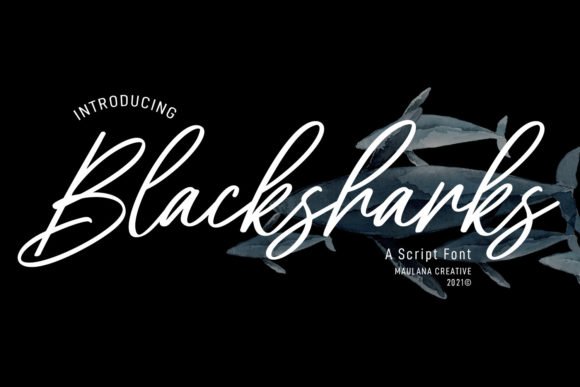
Unlock the Magic of Handwritten Charm with Blacksharks Script Font
Remember that moment when you finally nailed the design concept for your new branding project? The client loved it, and you felt a rush of excitement knowing you’d created something truly special. But, there was still something missing – a touch of personality that would make it truly stand out. That’s where Blacksharks Script Font comes in – a relaxed script font that brings a playful, handwritten charm to your designs.
With its endearing characters that seem to dance along the baseline, Blacksharks Script Font adds a touch of whimsy to your most creative ideas. Whether you’re designing a logo, packaging, or a marketing campaign, this font is sure to make your designs more engaging and memorable. As a valuable addition to any designer’s toolkit, Blacksharks Script Font is a must-have for anyone looking to elevate their creative work.
Blacksharks Script Font Key Features
- Unique Characteristics: The Blacksharks Script Font features a beautiful, hand-drawn script style with elegant connections and subtle flair, perfect for creative and artistic projects
- Font Weight: Offers a single weight, ideal for use as a headline or title font
Blacksharks Script Font Review
As a designer, I’ve had the chance to work with various script fonts, and Blacksharks Script Font is one of the most interesting ones I’ve come across. Here’s my honest review.
- Unique Character Set: Blacksharks Script Font has an extensive character set that includes a wide range of glyphs and ligatures, making it suitable for a variety of projects.
- High-Quality Design: The font is well-designed, with a smooth and elegant feel that’s perfect for headings and titles.
- Customization Options: The font comes with various OpenType features that allow for advanced customization and styling.
- Readability Issues: The font can be challenging to read at small sizes, making it less suitable for body text.
- Limited Kerning: The font’s kerning can be inconsistent, which may lead to awkward spacing in certain words.
- Not Suitable for Body Text: Due to its script nature, Blacksharks Script Font is best used for headings, titles, and other display text.
Blacksharks Script Font is a solid choice for designers looking to add a touch of elegance and sophistication to their projects. While it has some limitations, the font’s unique character set and high-quality design make it a valuable addition to any font collection.
For the best results, use the Blacksharks Script Font in bold or italic styles to add emphasis to your text.
Use the font in conjunction with other fonts to create a unique and eye-catching design.
The Blacksharks Script Font is ideal for:
Branding and logo design.
Typography-based art and graphics.